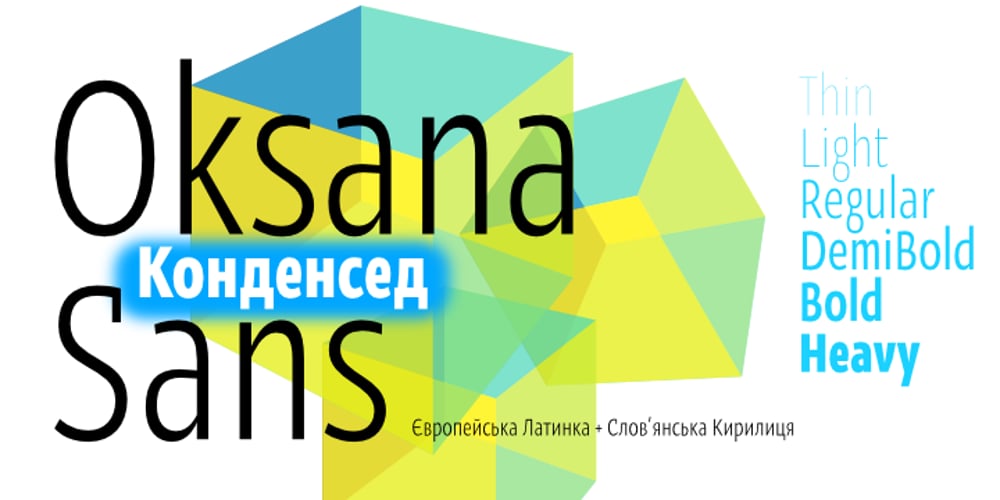
Oksana Sans Condensed Font Family was designed by Andrij Shevchenko and published by AndrijType. Oksana Sans Condensed contains 6 styles and family package options. Oksana Sans Condensed is designed for tight-fitting text. It has six weights from Thin to Heavy. Supports Western, Central, Baltic Latin and European Cyrillic codepages. Old-style digits, some ligatures, alternative characters and Ukrainian hryvnia sign are also included.